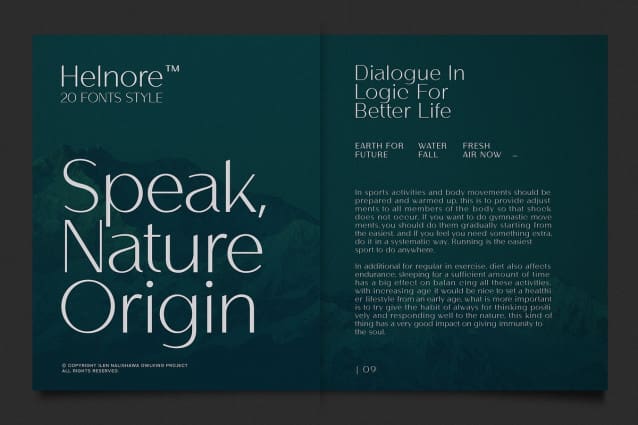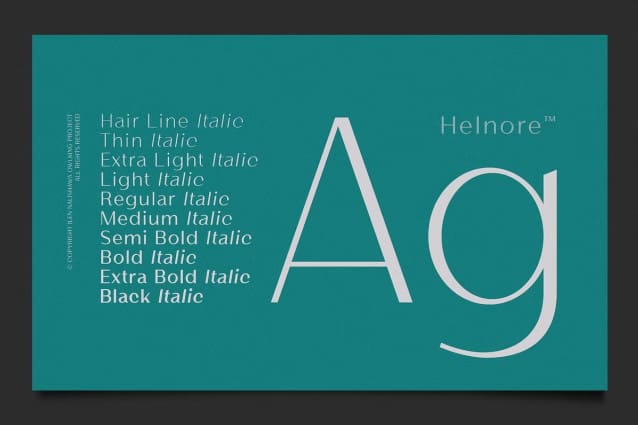
Helnore Font
Helnore Font is a sans serif font family with tapered accents in some of the letters giving it a modern and bold character, even being quite prominent in thin characters. This font aims to give an elegant impression and also looks so luxurious in short words for a letter-based title and logo. Helnore bring 20 style/Italic and support multi-languages, this font provides a wider range of exploration, which can be useful also for reading sentences and giving variety in each sentence by combining it with several sizes.